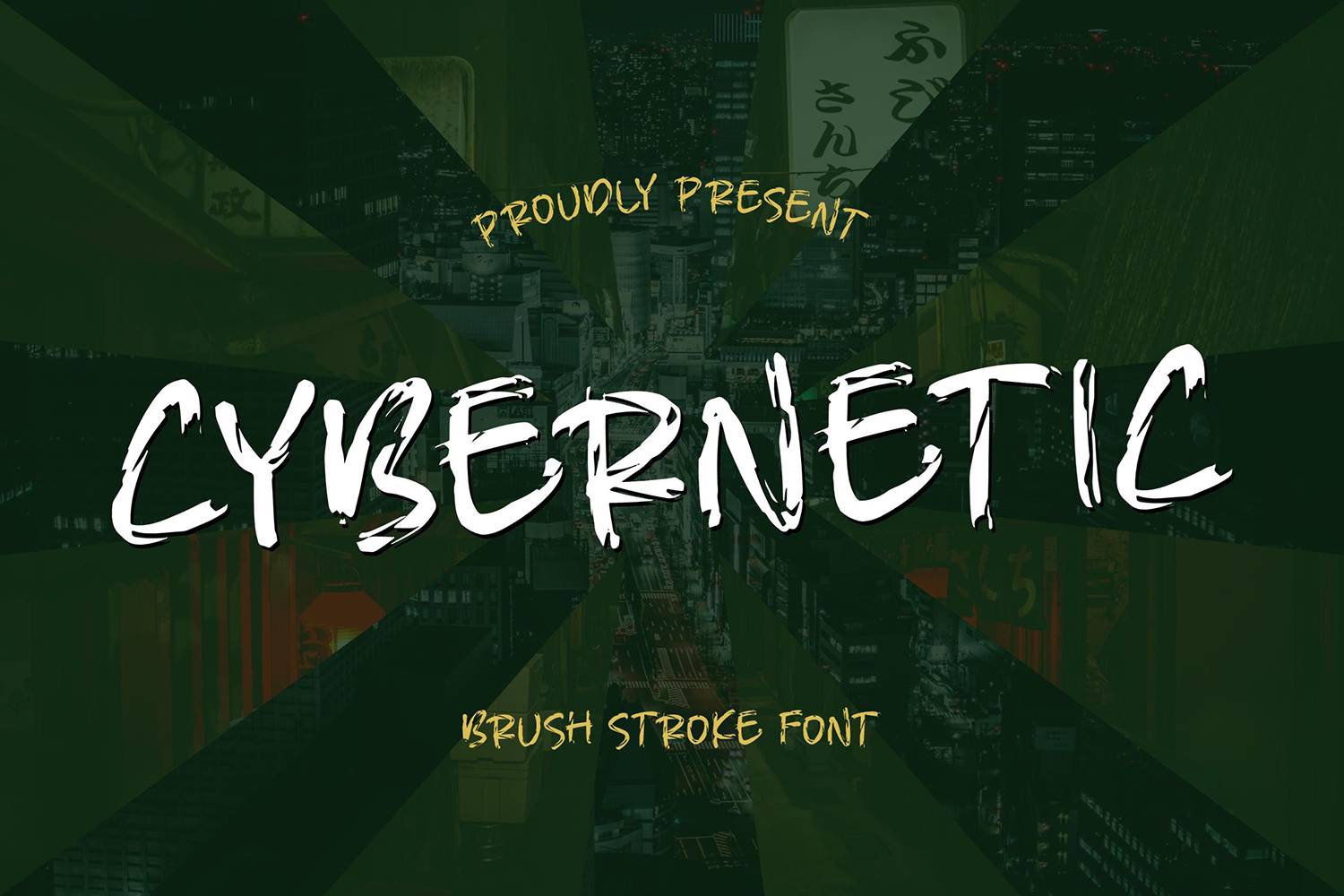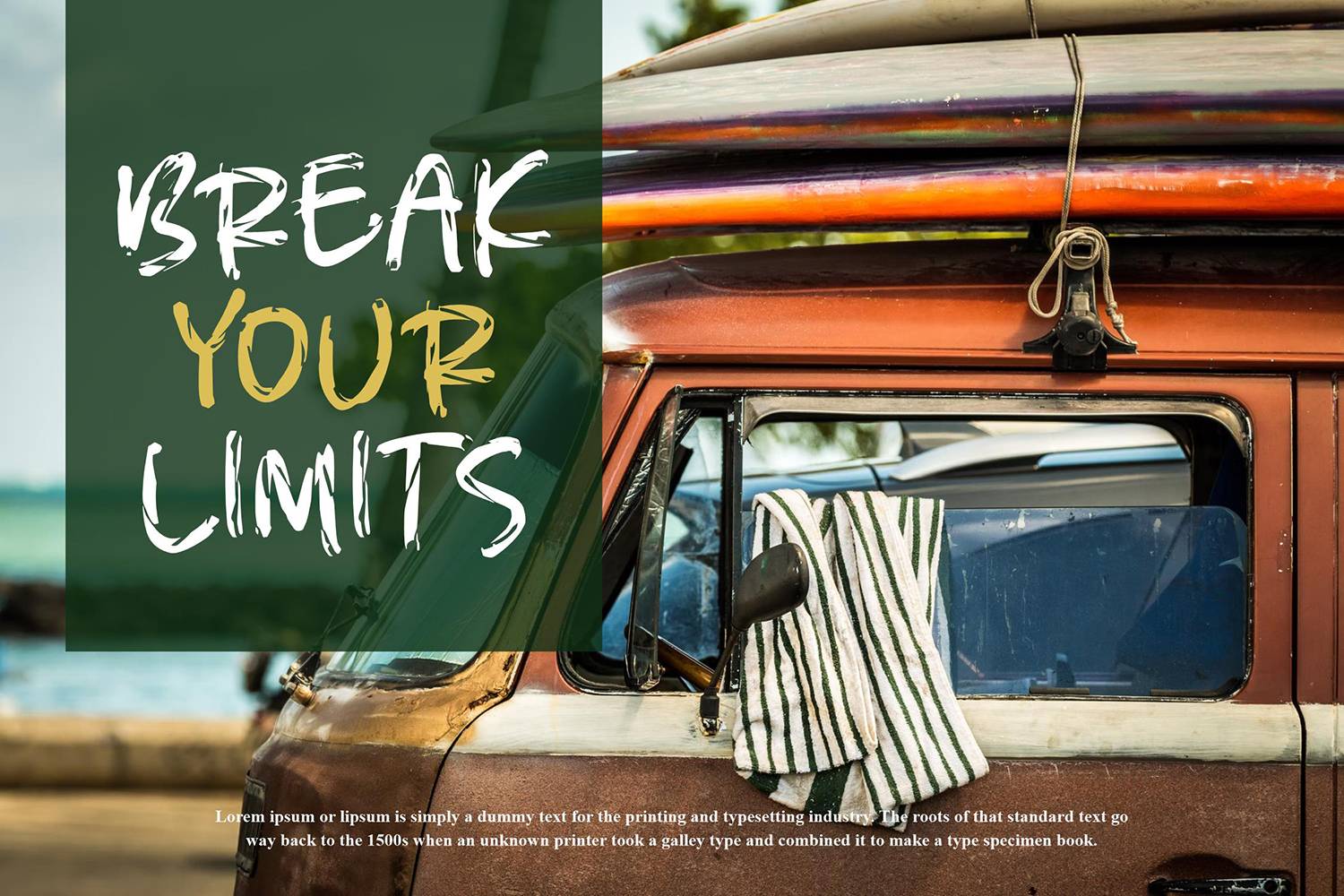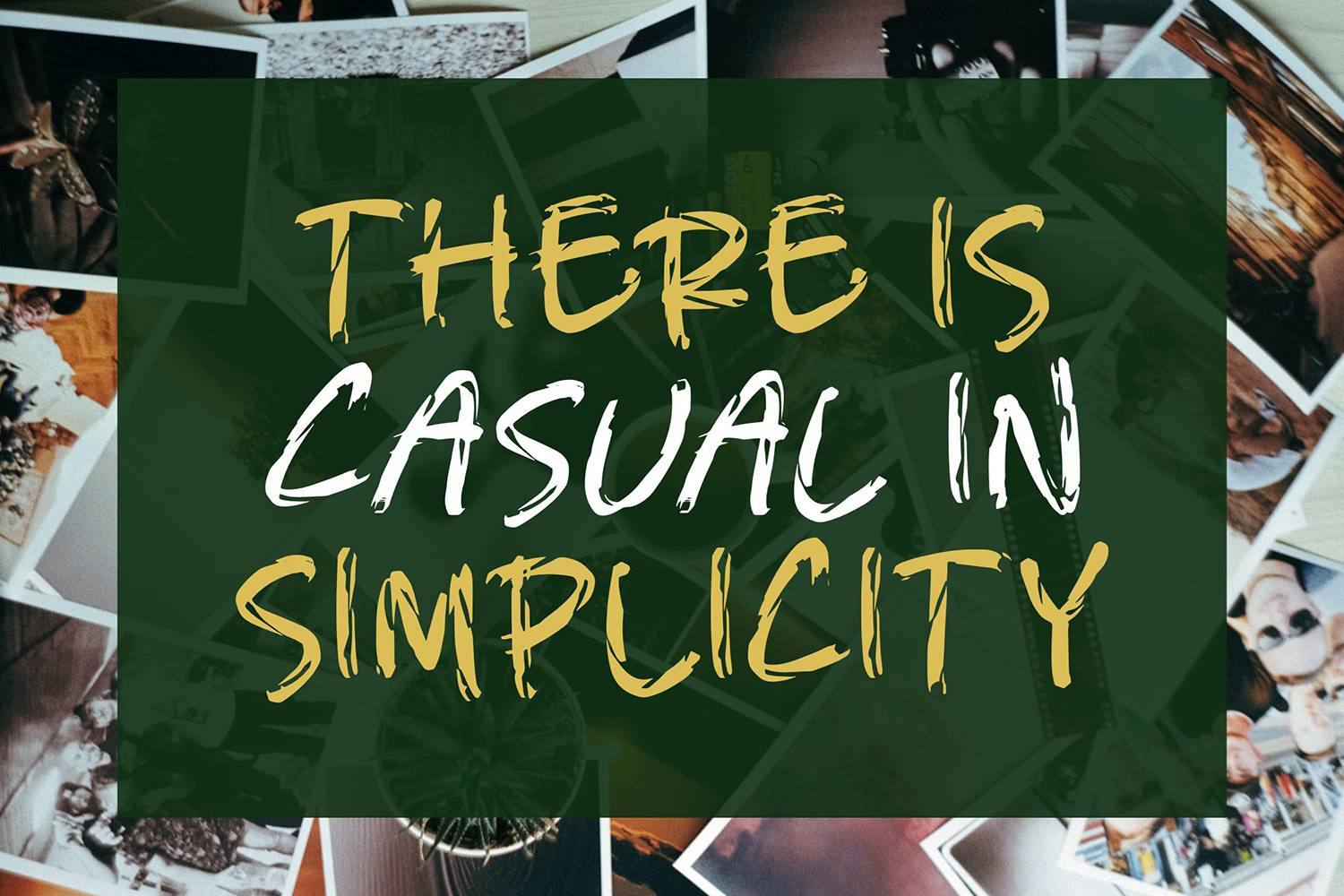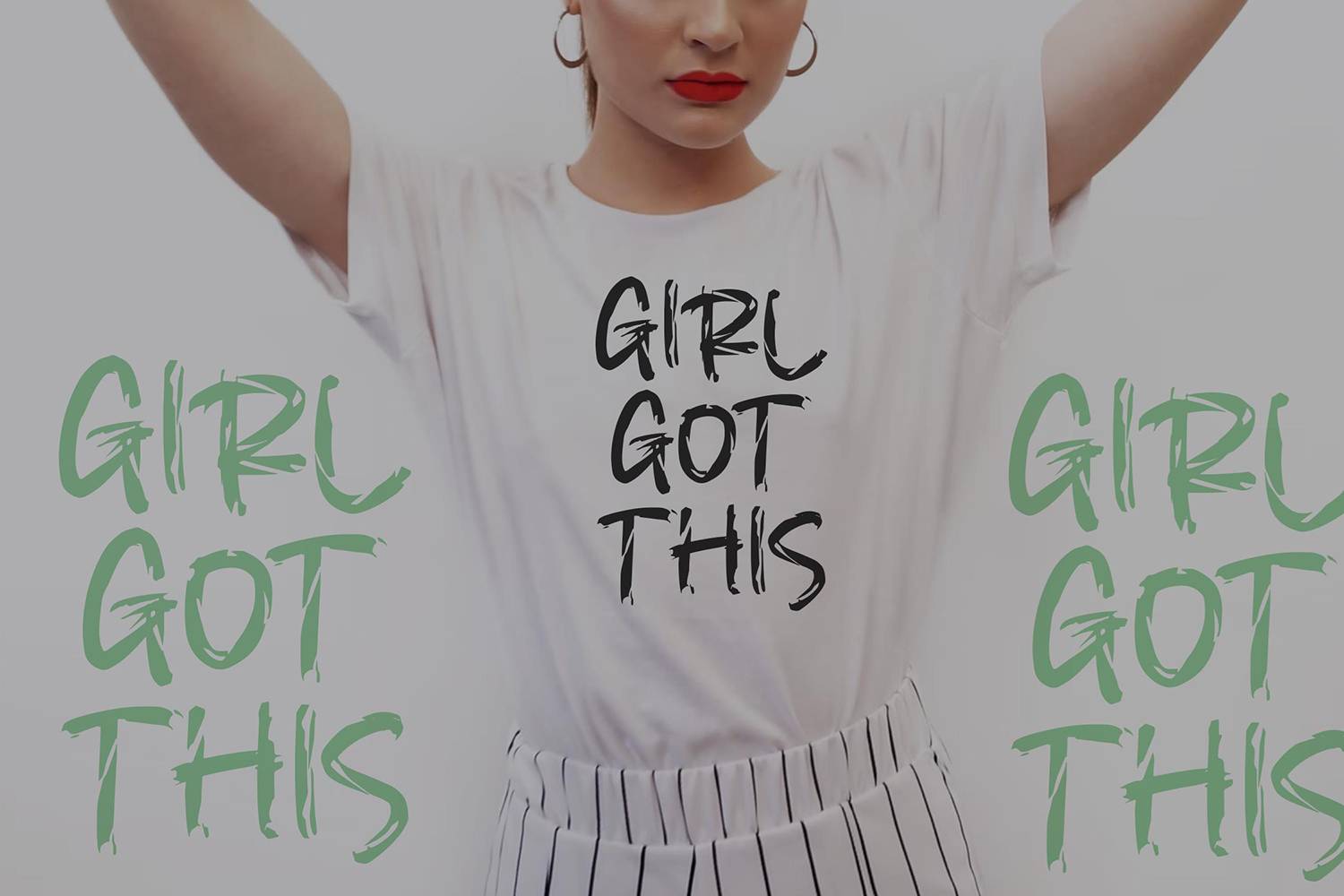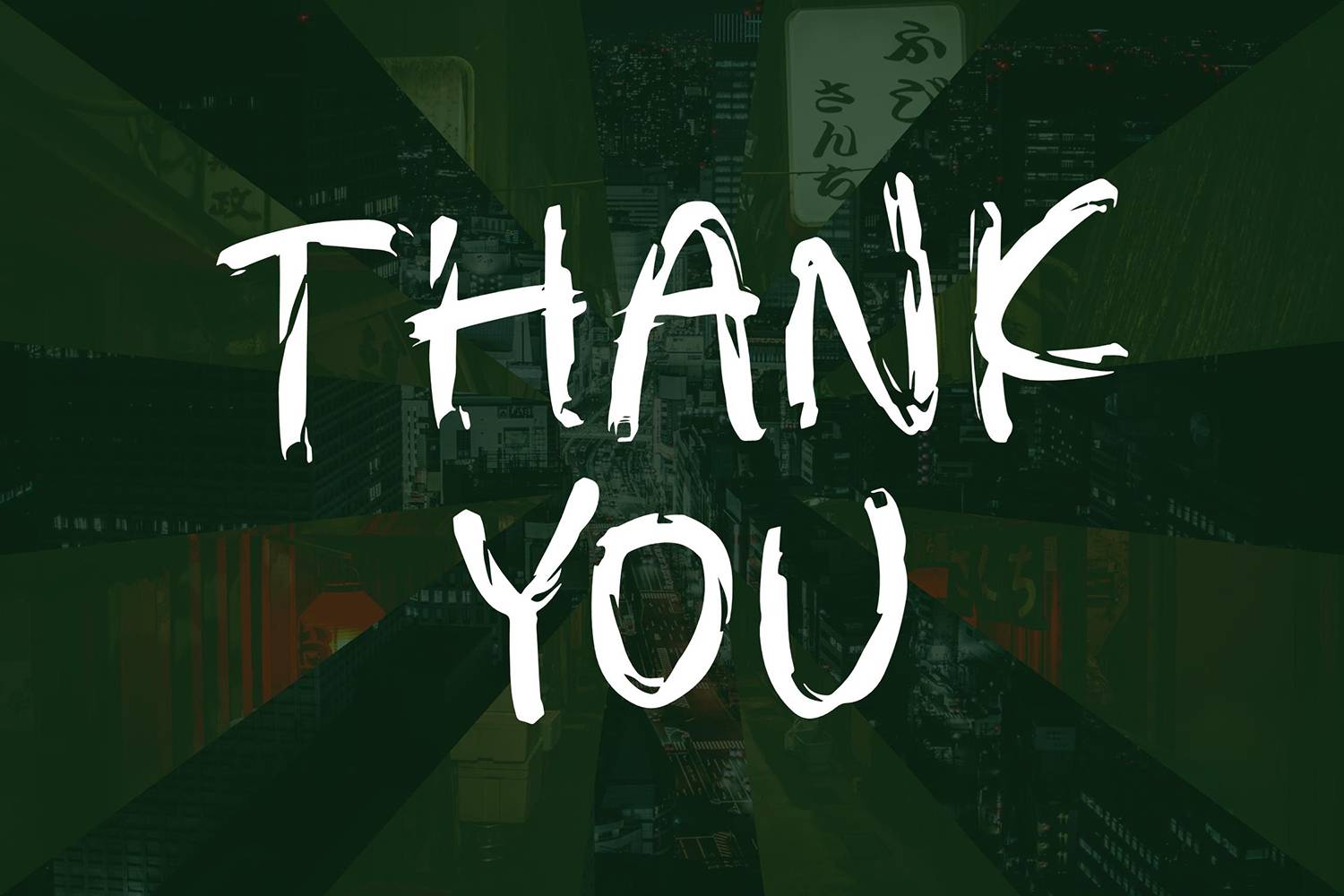
Cybernetic is a bold, expressive brush-style sans serif font featuring irregular, textured strokes that mimic hand-painted lettering. Its tall, narrow letters with rough edges convey an energetic, futuristic vibe, making it ideal for creative projects, posters, and branding that seek a dynamic, edgy look. This font works best in display use where its unique, raw personality can stand out.
Cybernetic Font
About Cybernetic Font